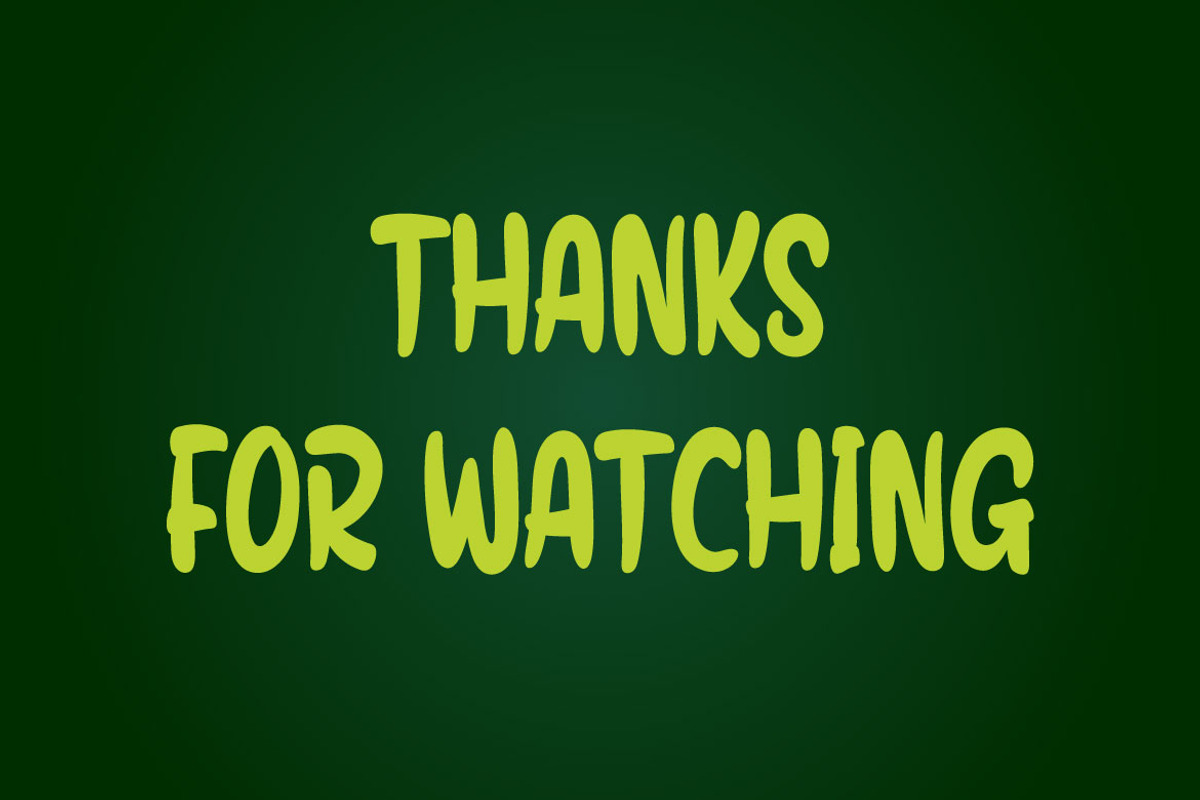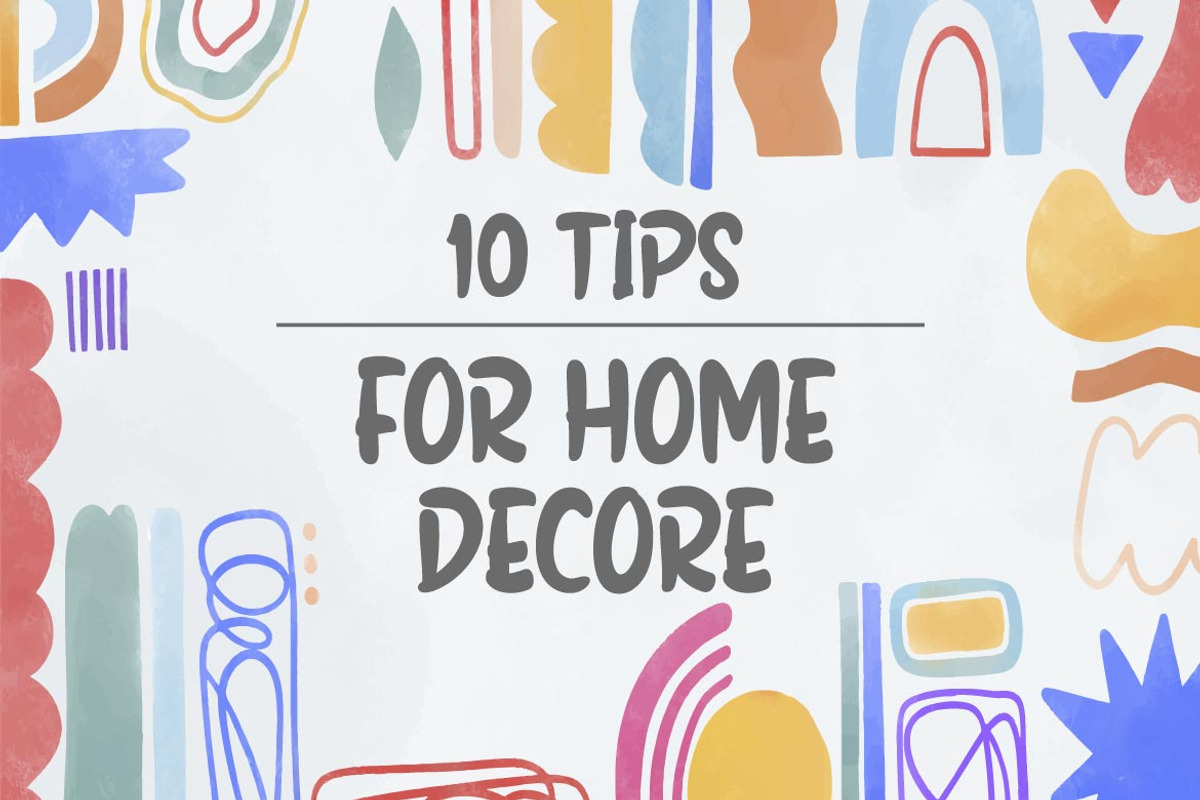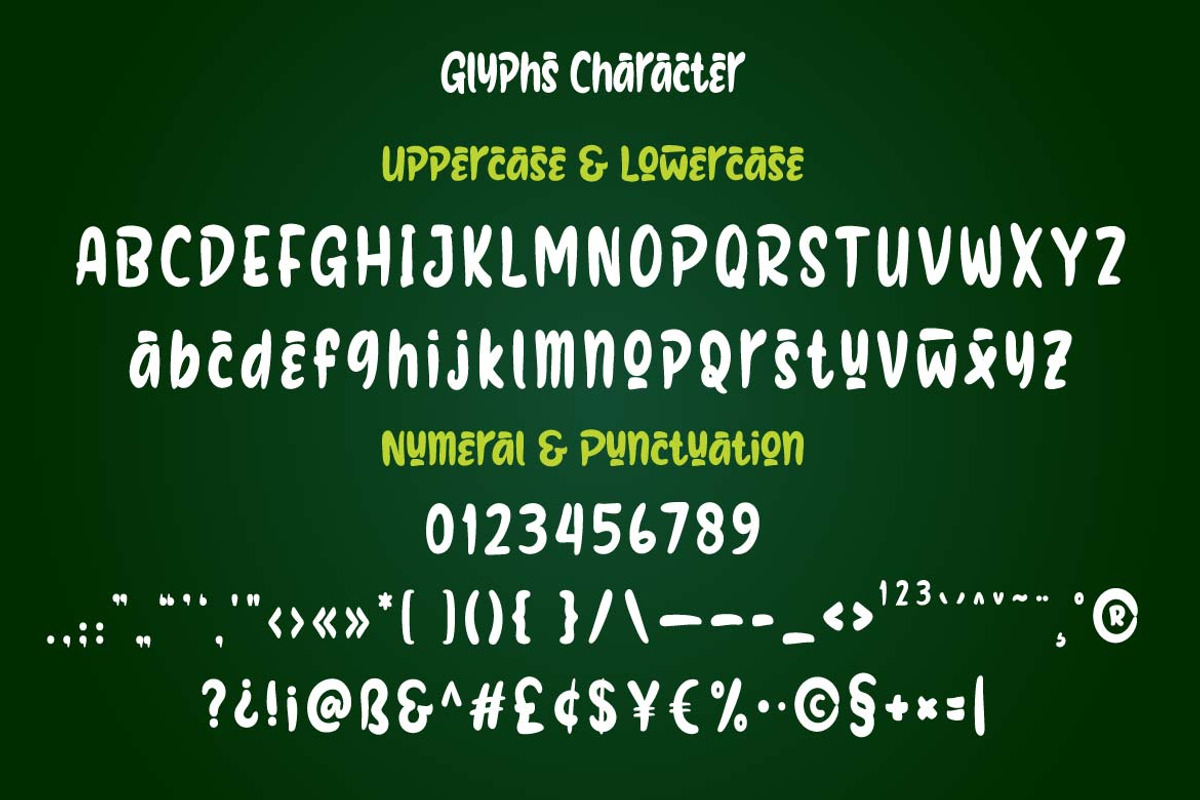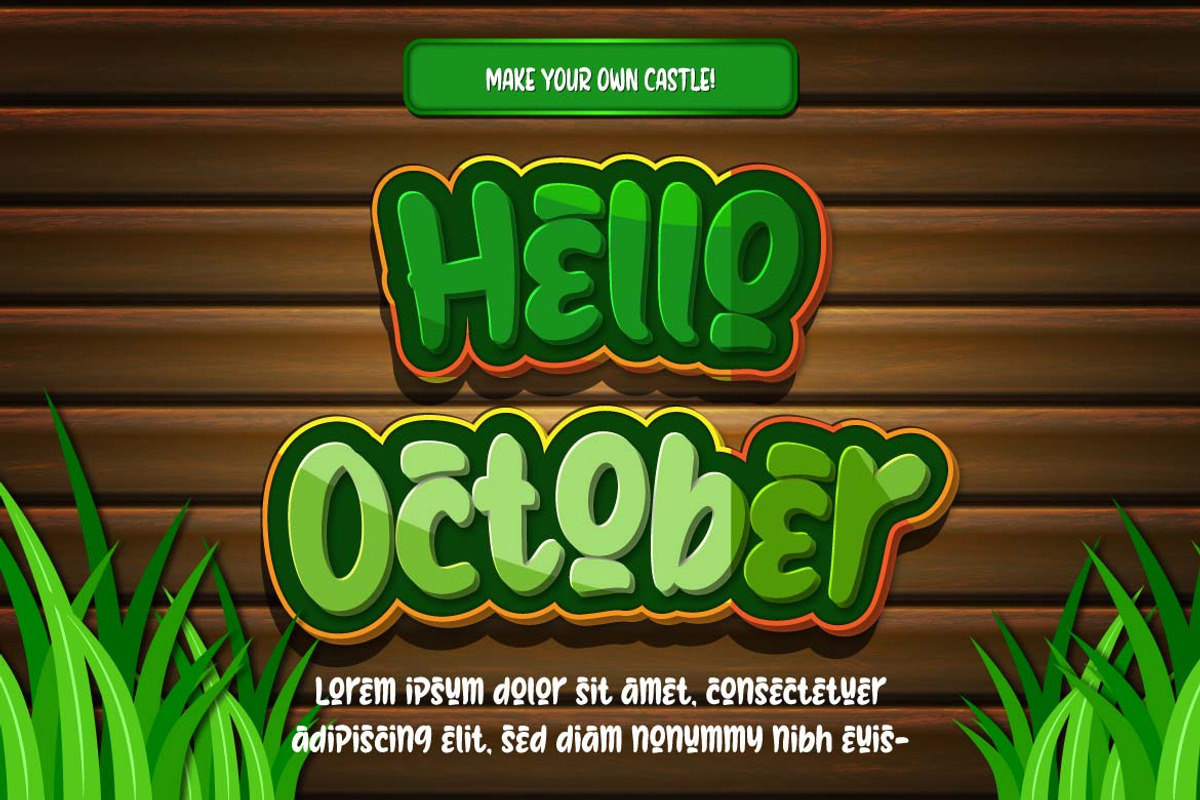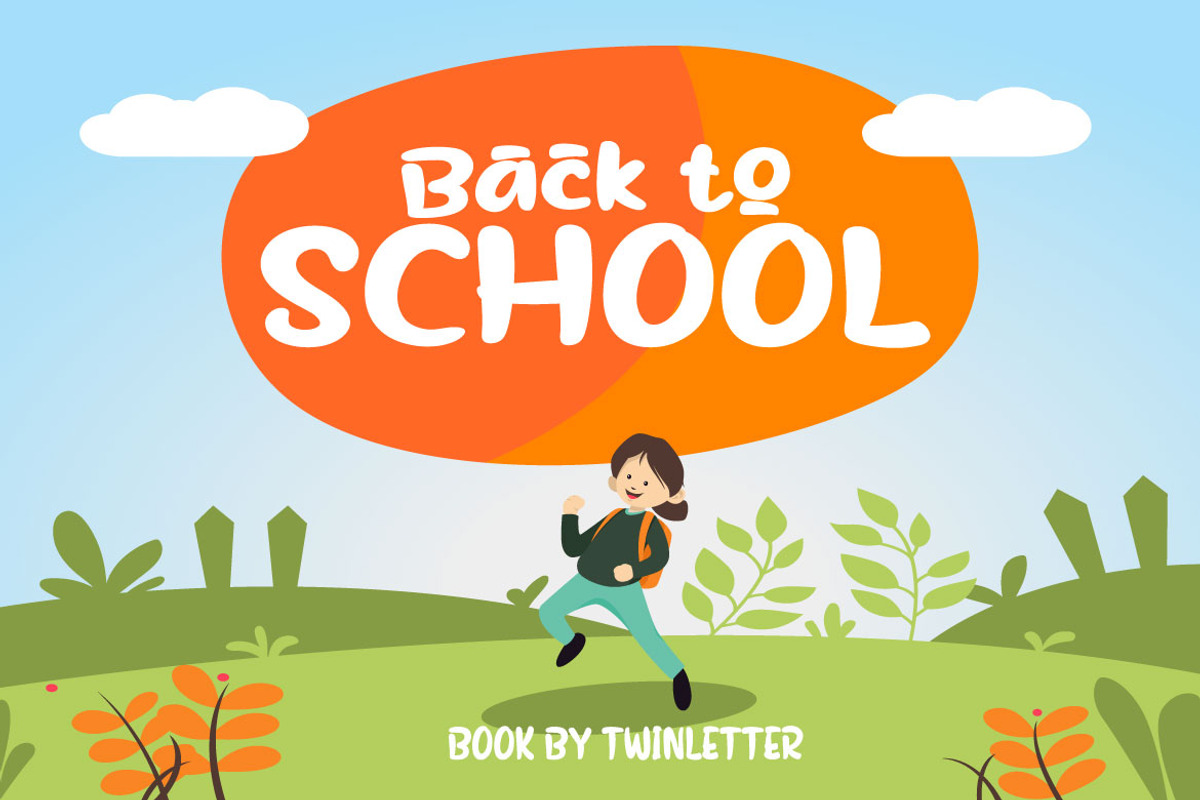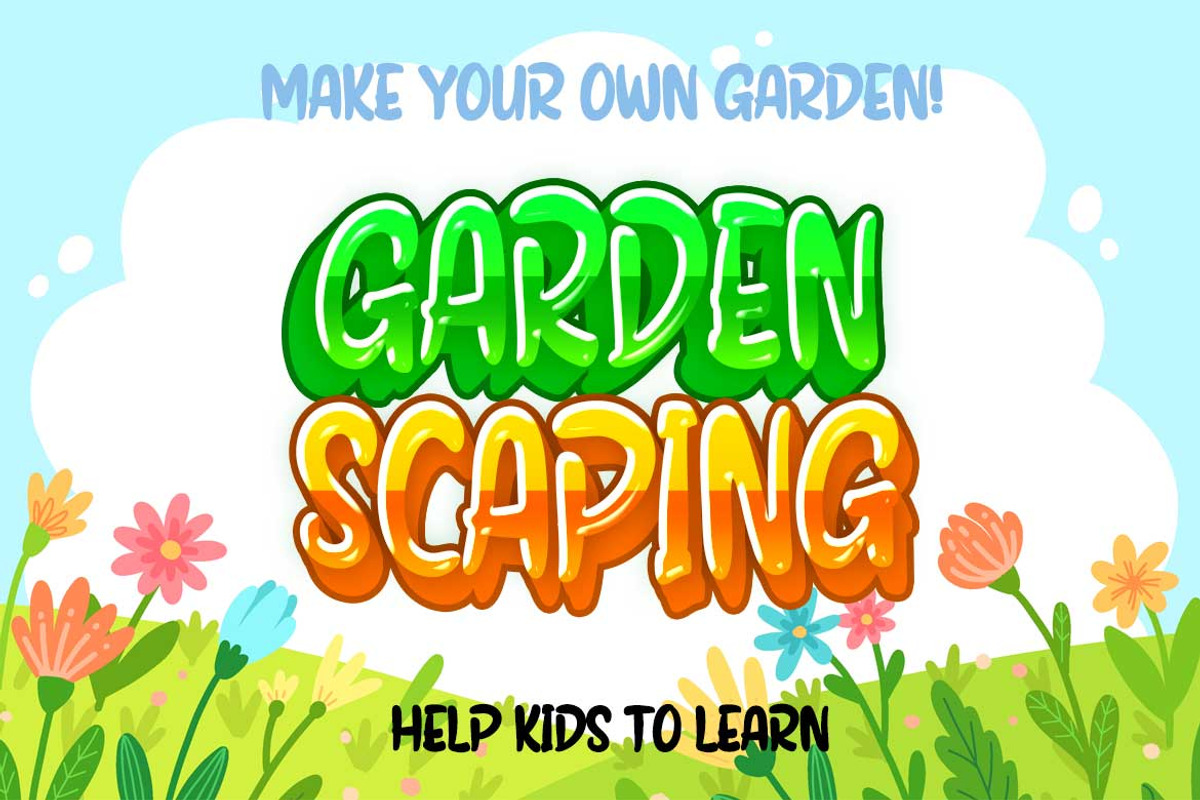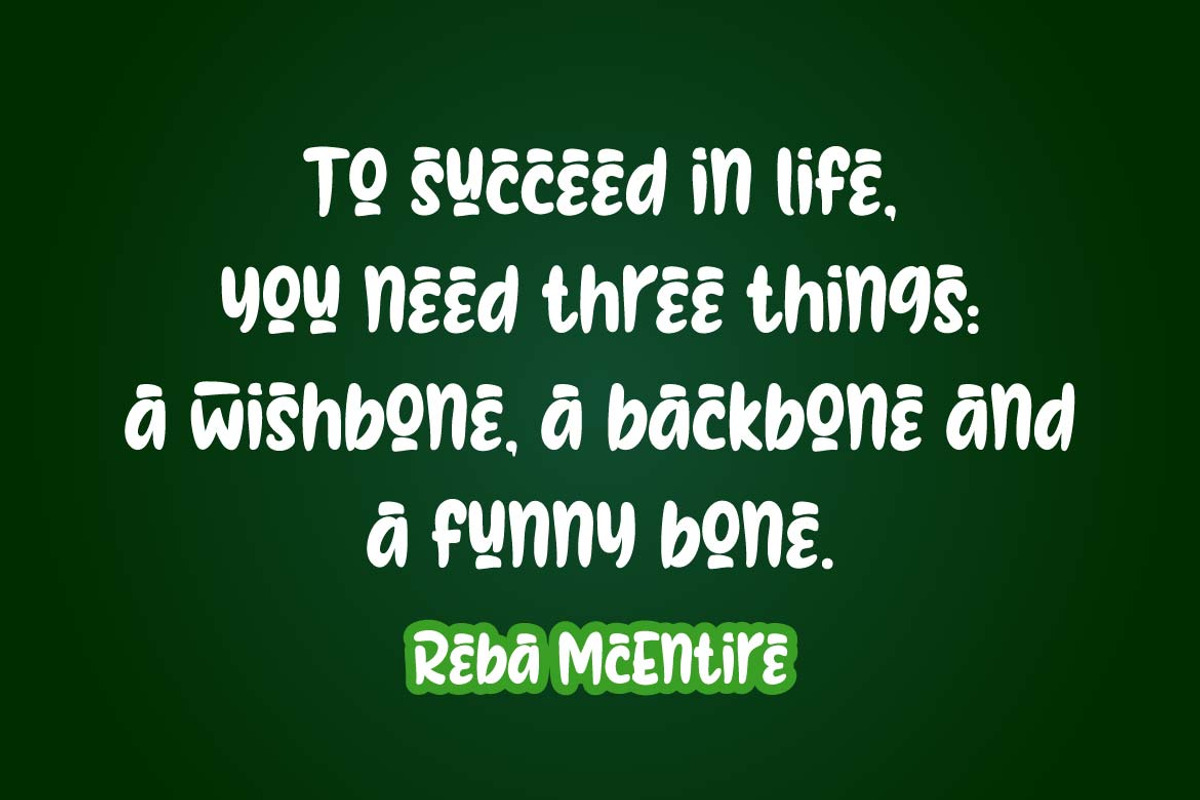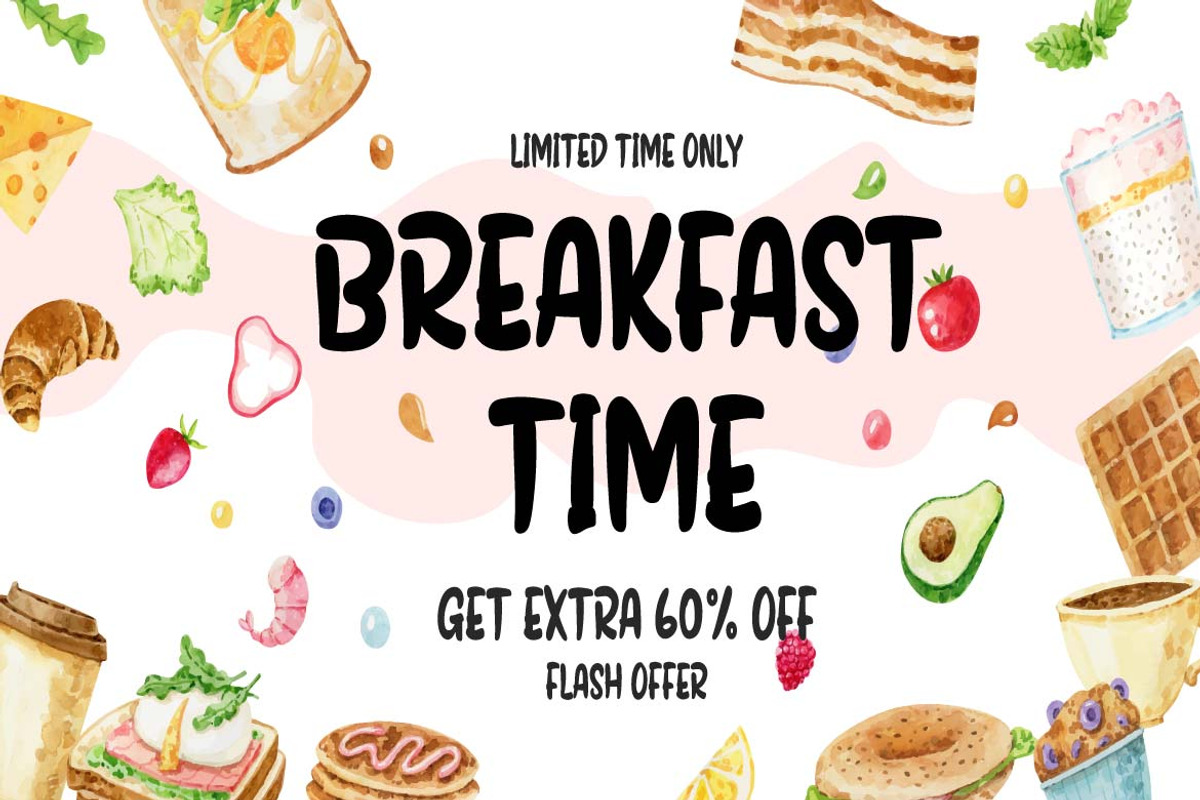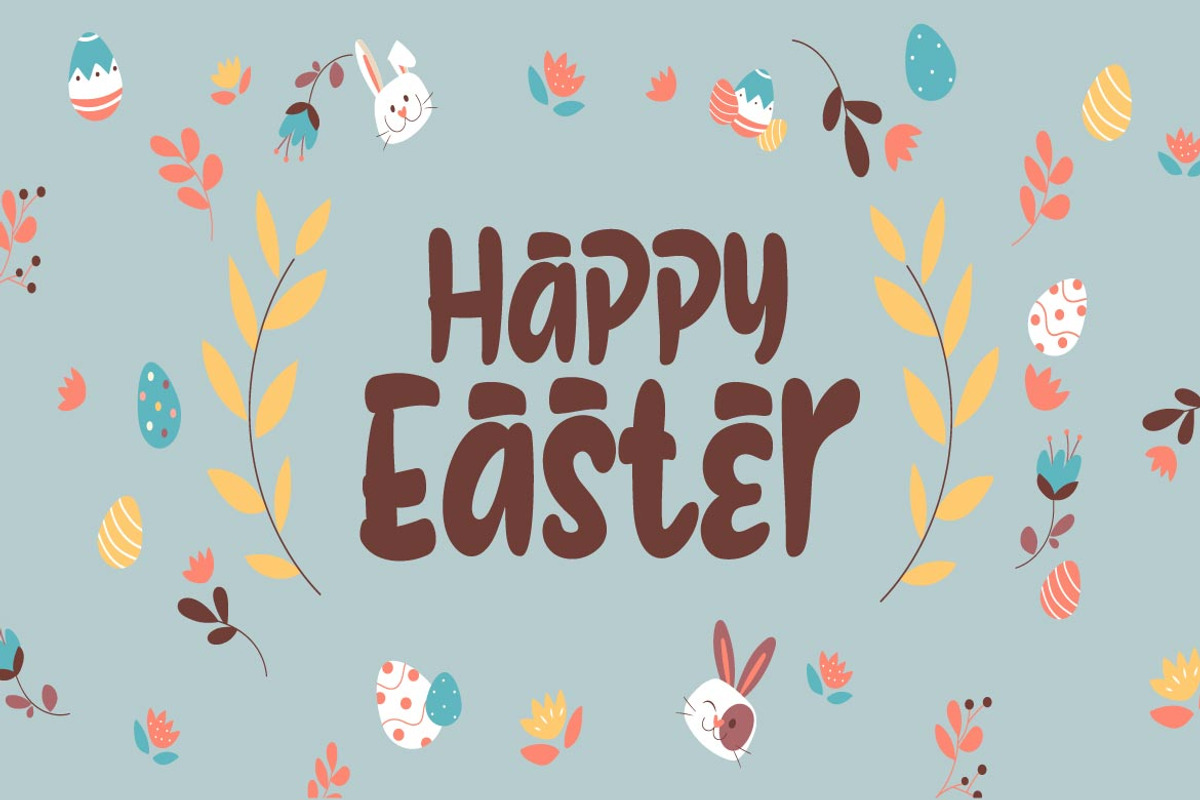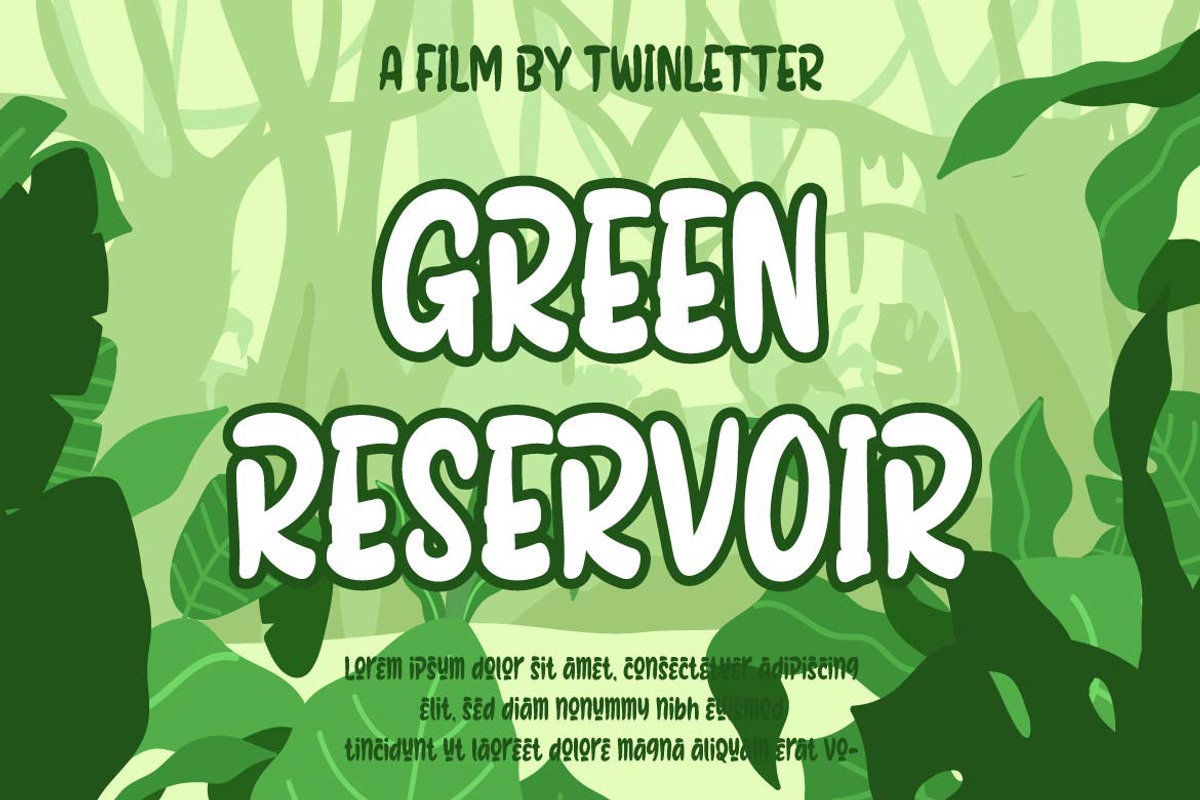
Geyalu
Geyalu is a playful display font, relaxed but still elegant, a beautiful font made with natural handwriting, making your project look natural and charming, in its application this font is really fun you can use it as a text sentence or title and it still looks beautiful, very fitting for your project that requires writing Hands that are natural and pleasing to the eye of course. This typeface is ideal for usage in a variety of unusual graphic projects, including games, book titles, outdoor activities, posters, banners, quotes, branding, and other unique projects. So, what are you waiting for? Get this font right now!